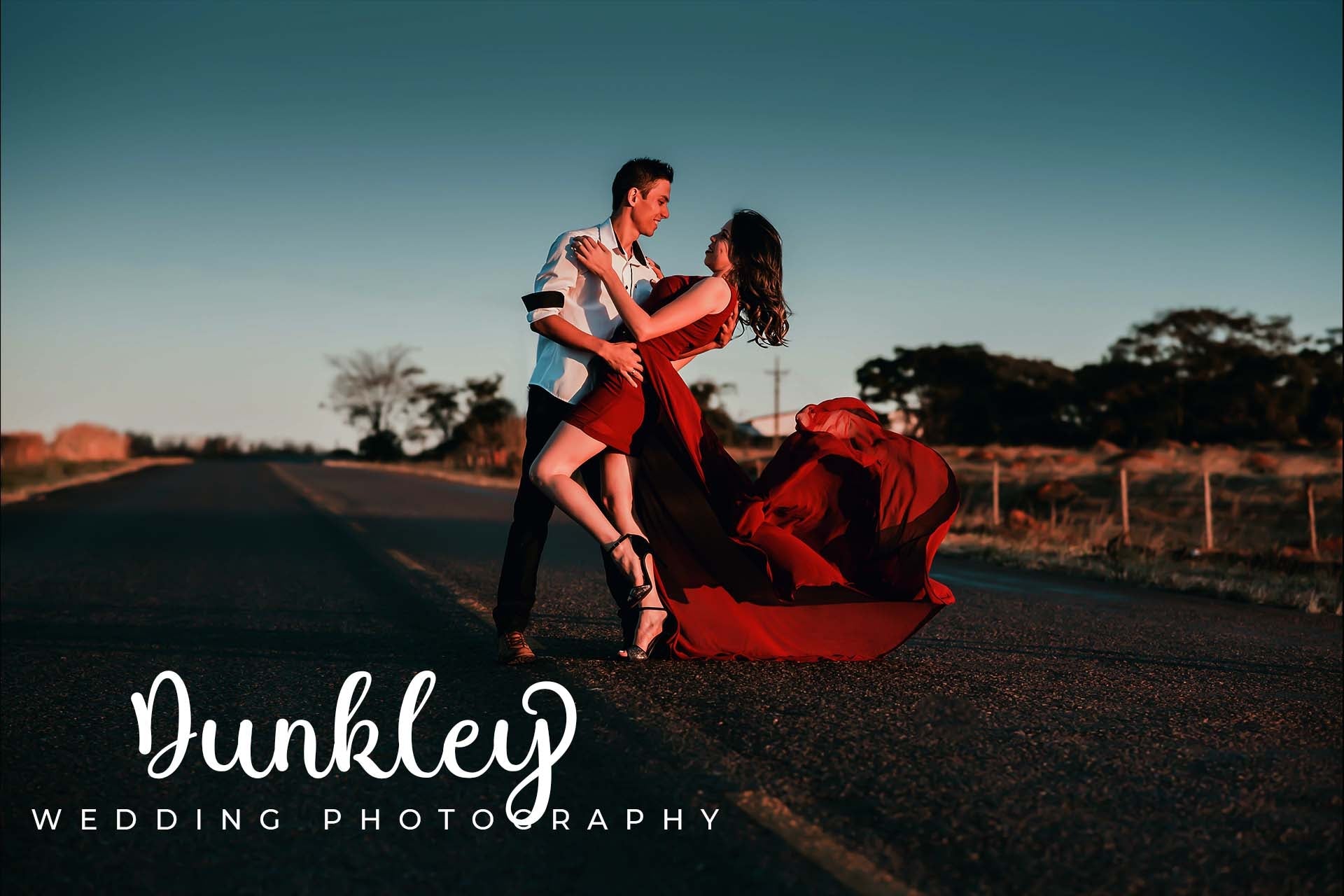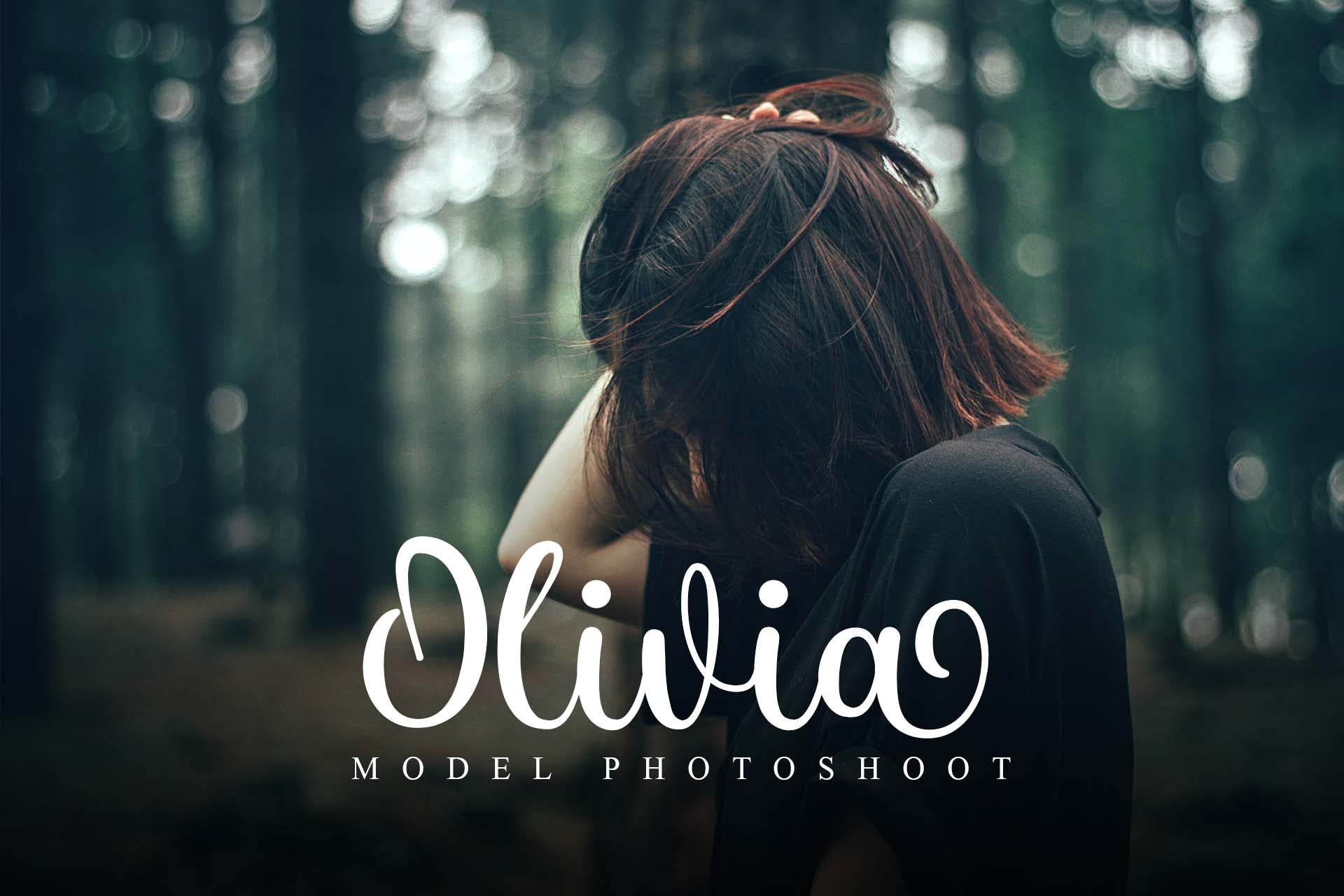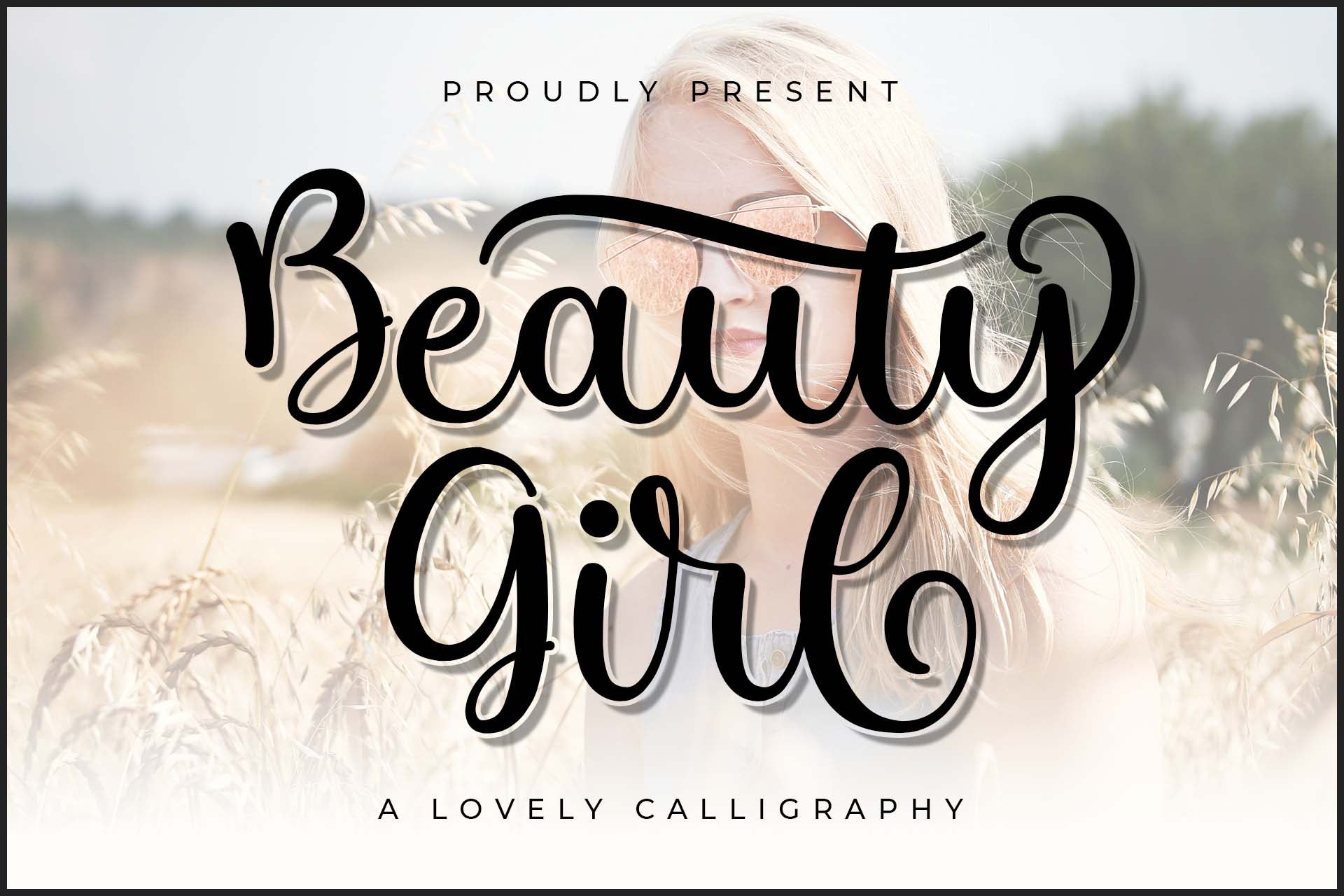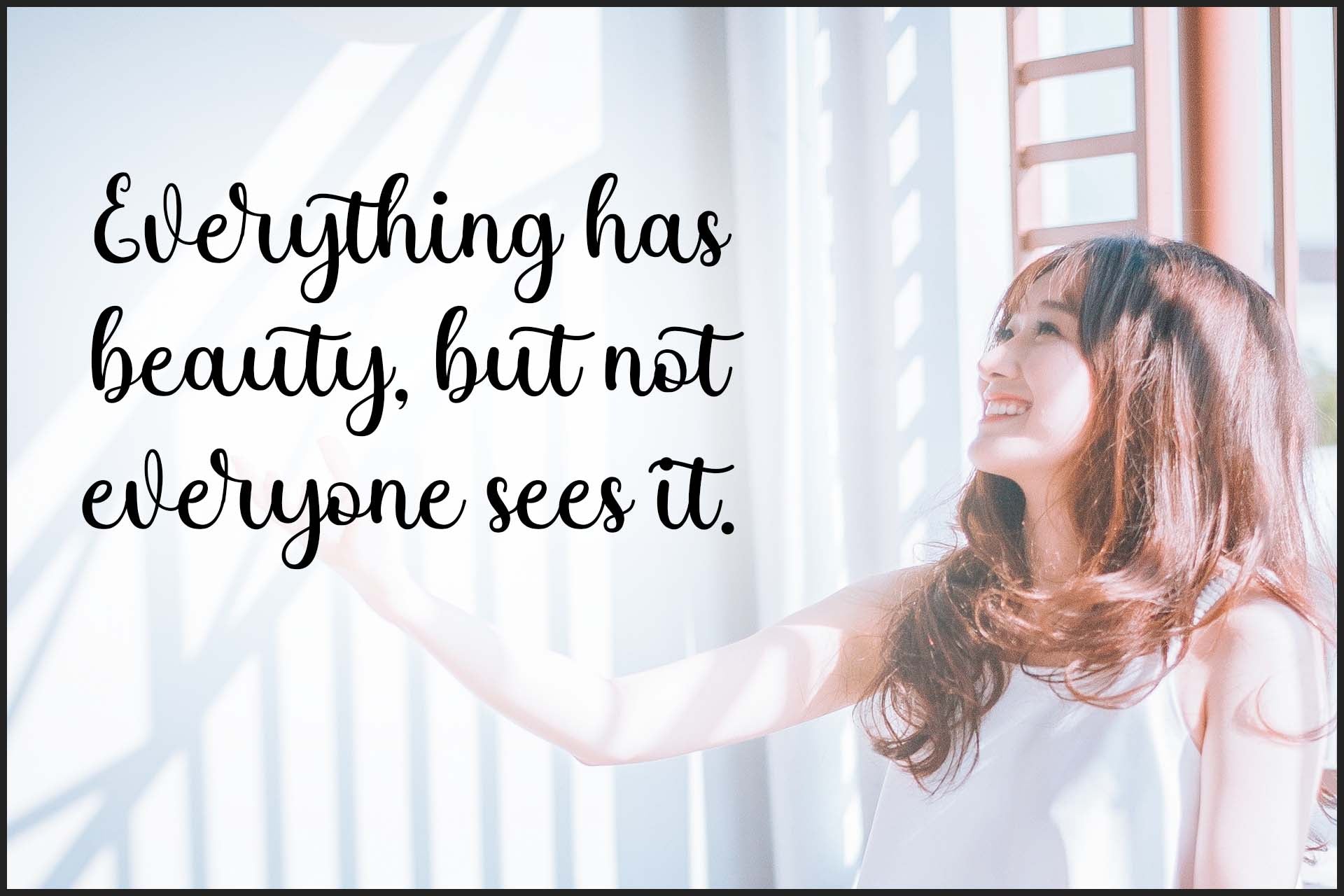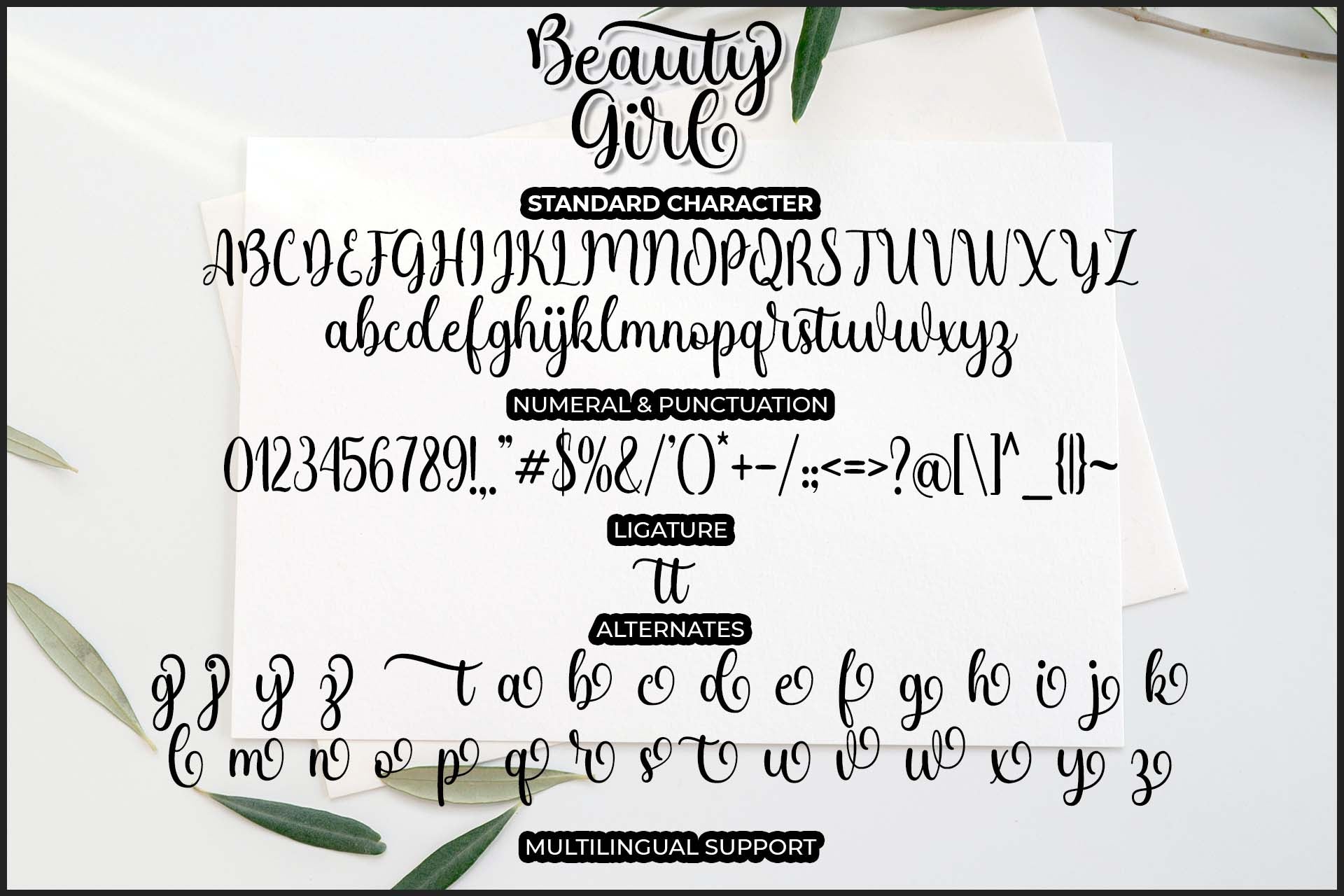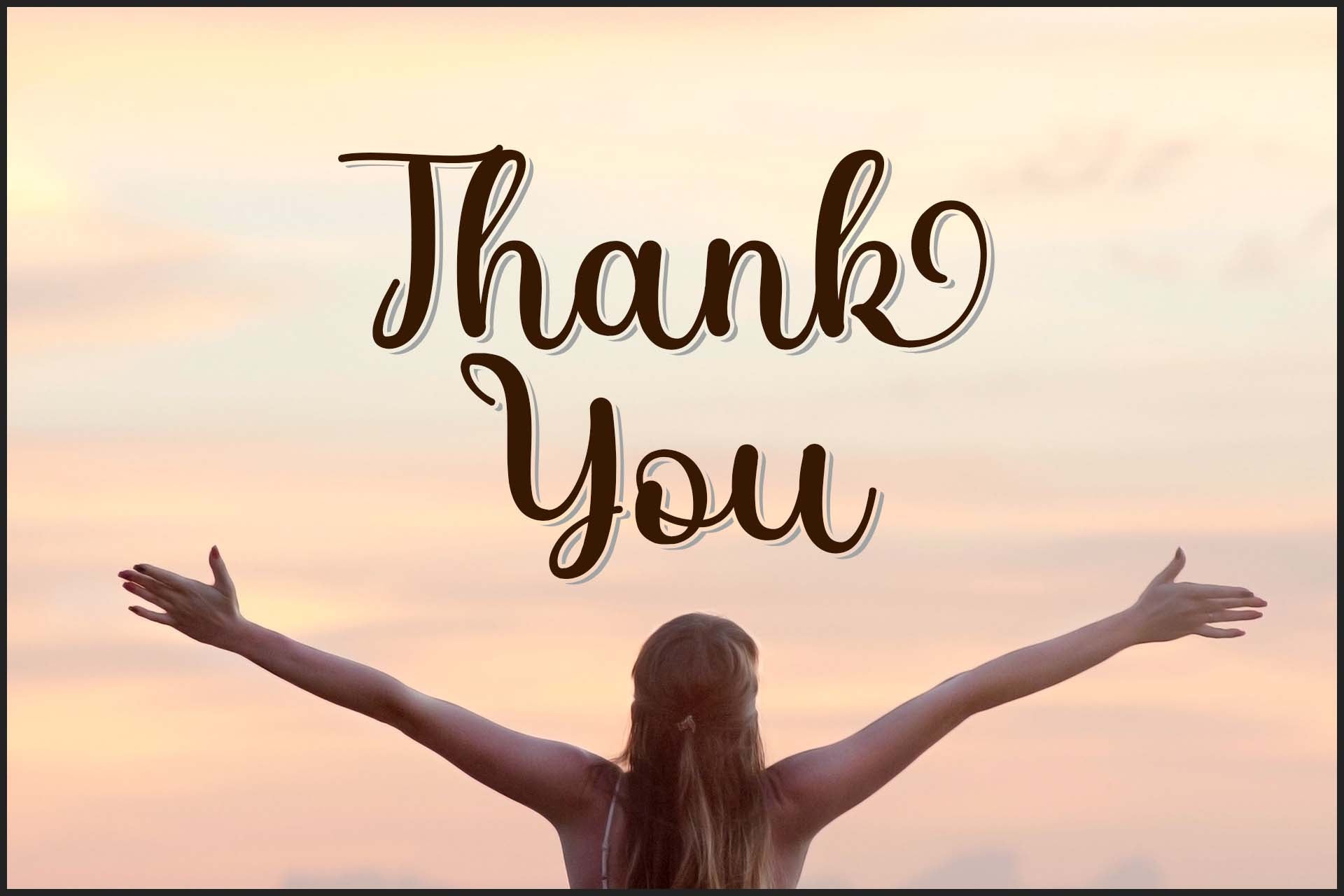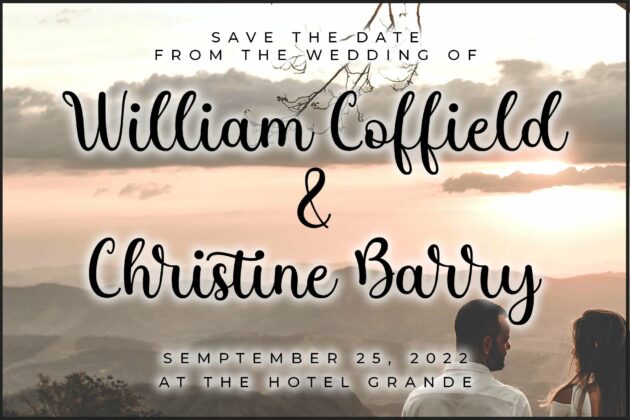
Beauty Girl
About Beauty Girl
Beauty Girl is a delicate, elegant, and flowing handwritten font. It has beautiful and well-balanced characters and as a result, it matches a wide pool of designs. Beauty Girl is PUA encoded, which means you can access all of the glyphs and swashes with ease!